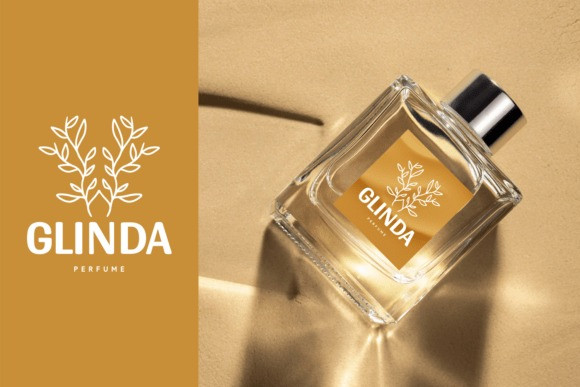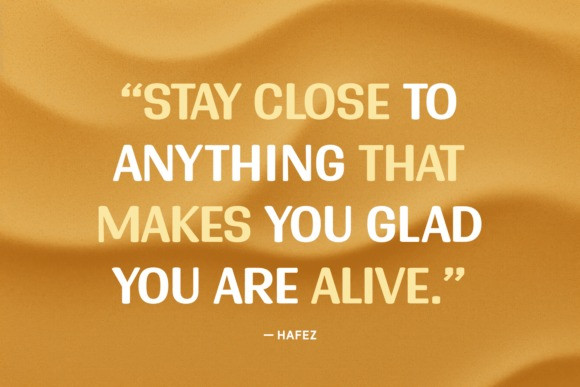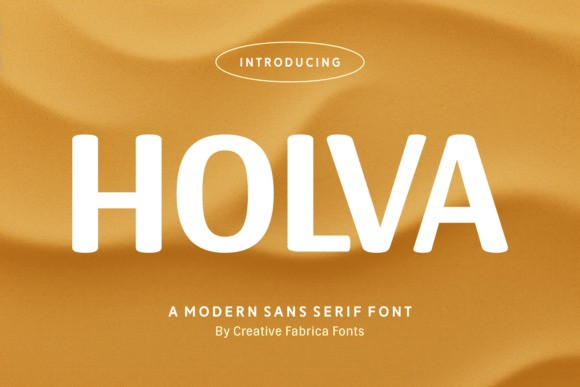
Holva Font
Holva Font is a modern sans serif font with a clean and minimal design, perfect for projects that demand clarity and sophistication. With its balanced letterforms and smooth curves, this typeface works seamlessly for branding, headlines, packaging, web design, and editorial layouts. Holva embodies simplicity and elegance, making it a timeless choice for versatile creative projects.